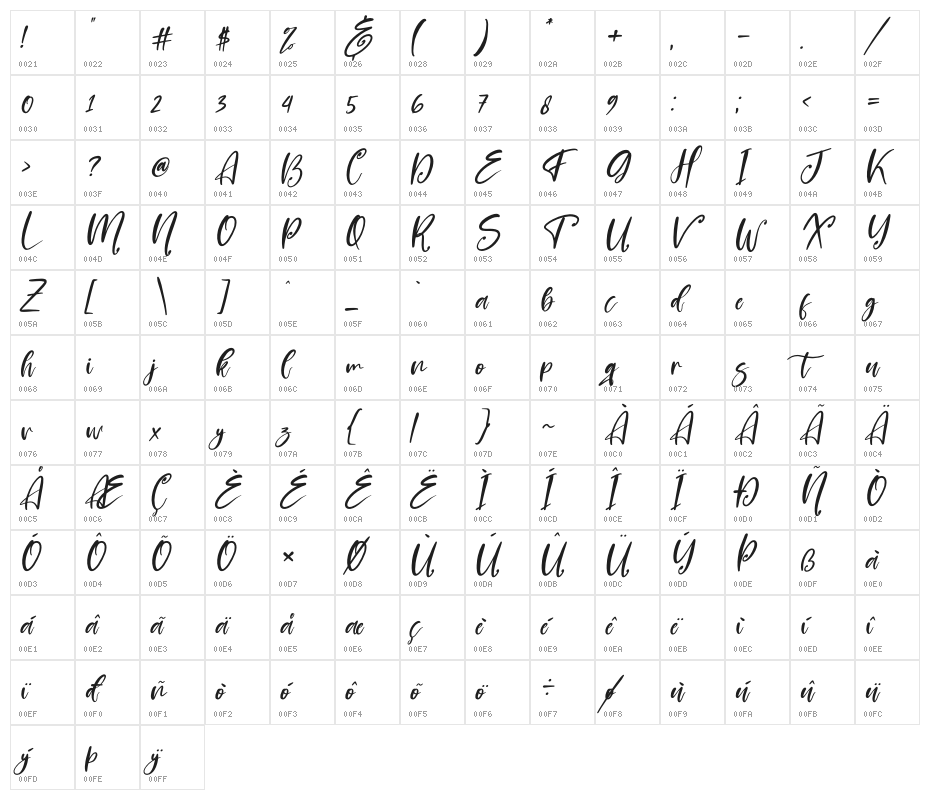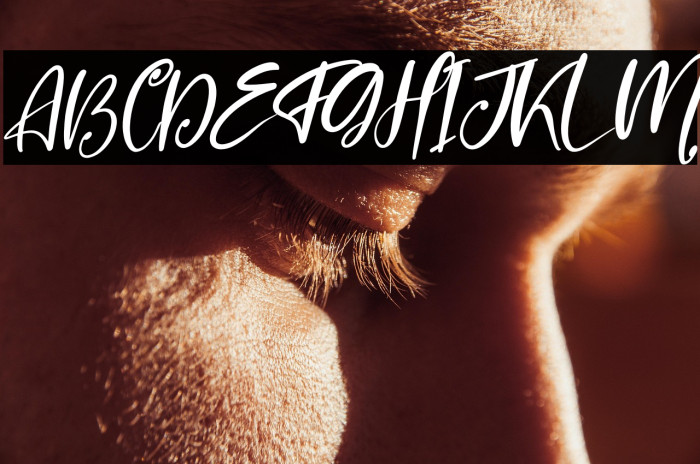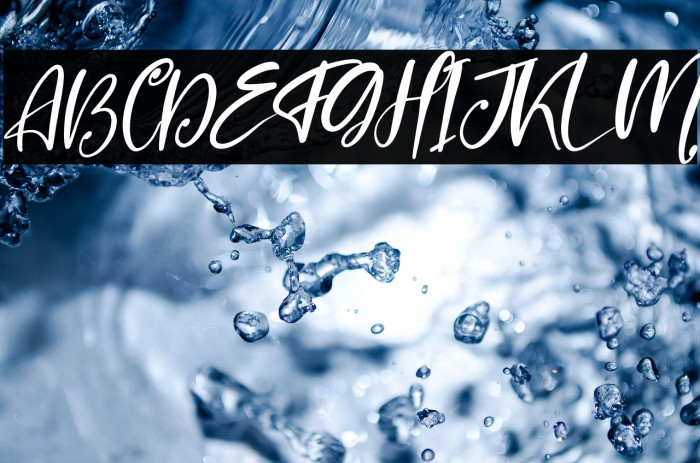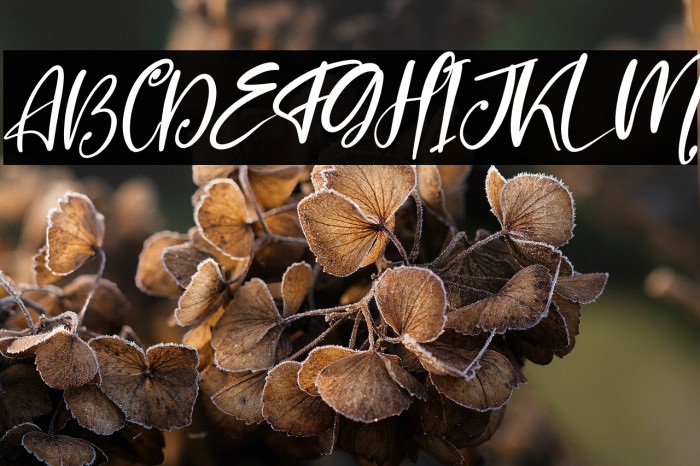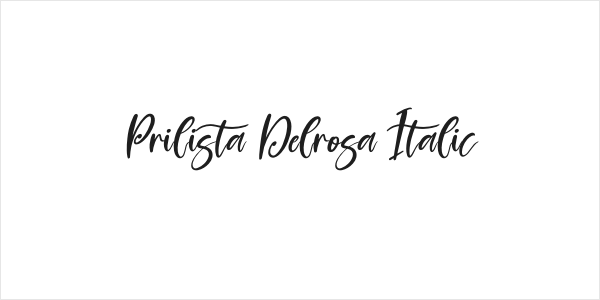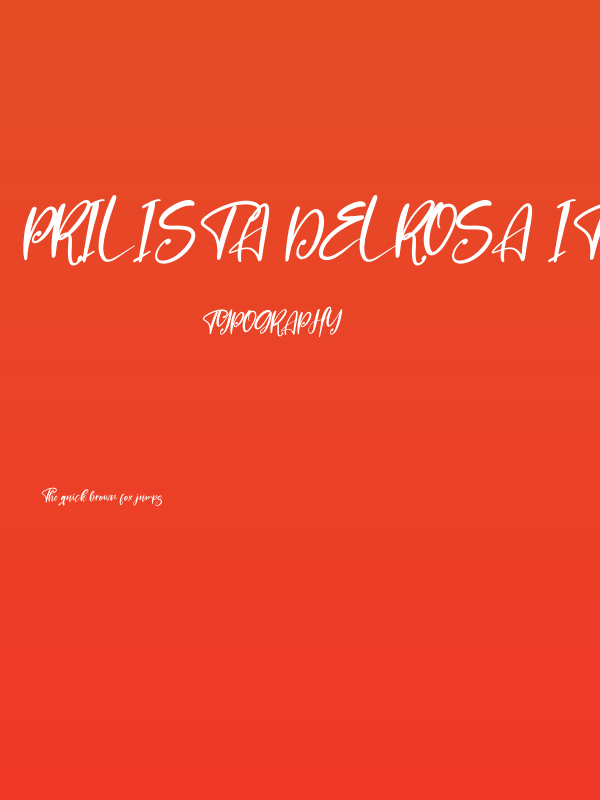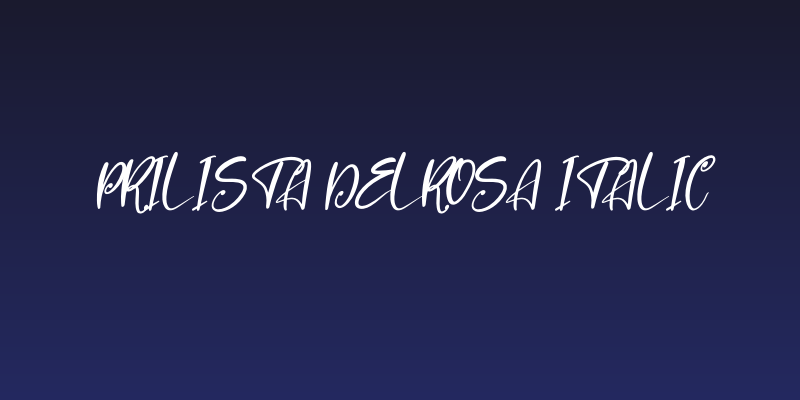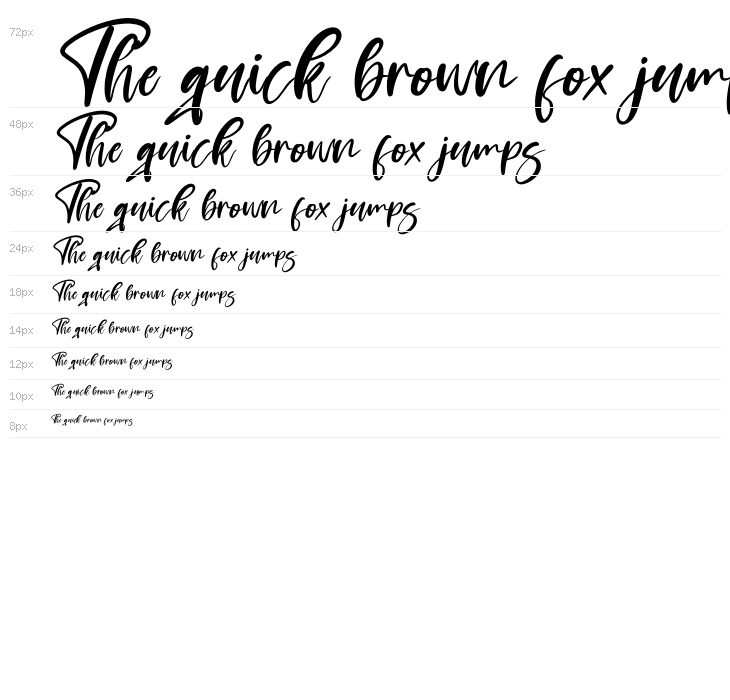
Prilista Delrosa Italic Font
Prilista Delrosa Italic Description
This font features a flowing, cursive style with a modern twist. The letters are elegantly connected, creating a sense of fluidity and movement. The uppercase letters are bold and expressive, while the lowercase letters maintain a consistent rhythm with slightly exaggerated loops and swashes. The numerals are stylishly integrated, matching the overall aesthetic. Special characters are creatively designed, adding a unique flair. The font's overall appearance is both sophisticated and playful, making it suitable for a variety of creative projects.